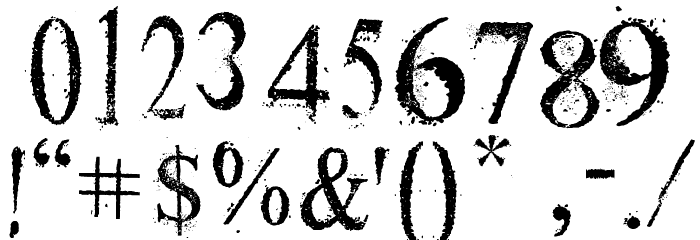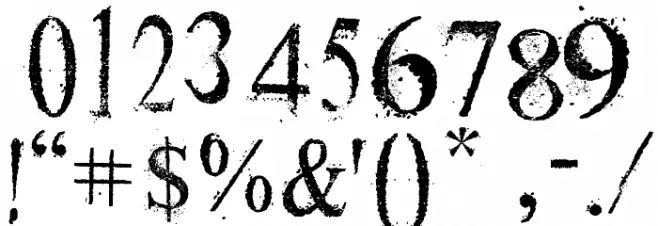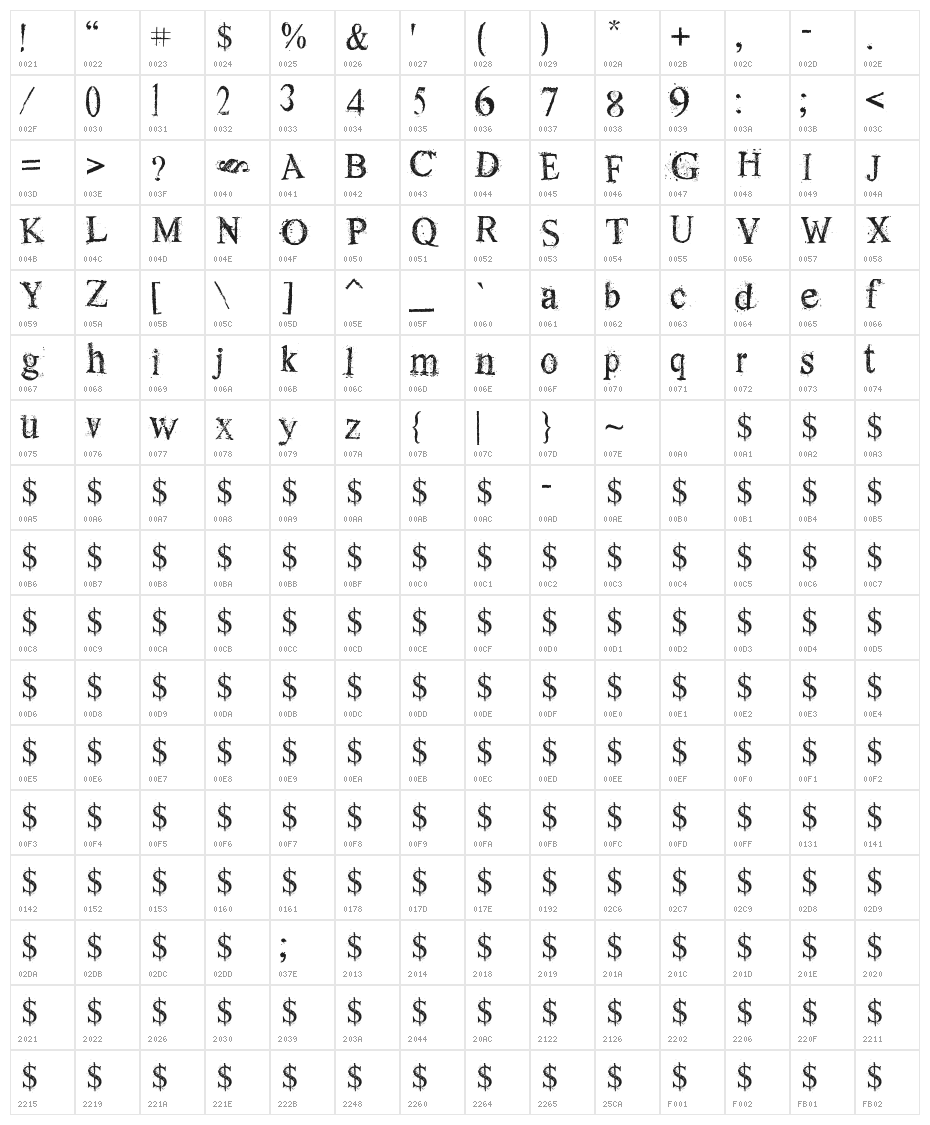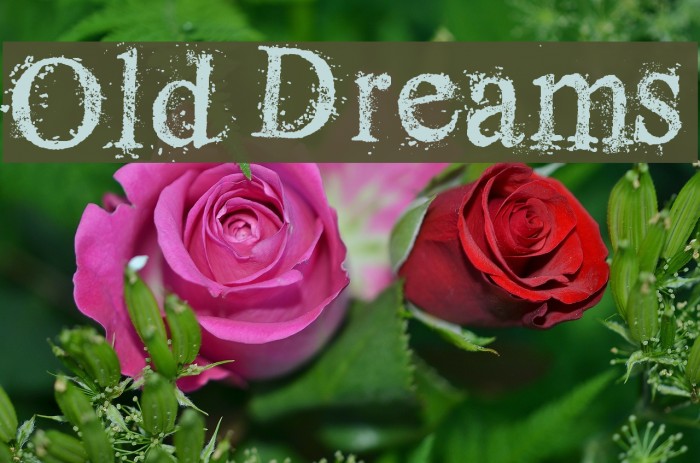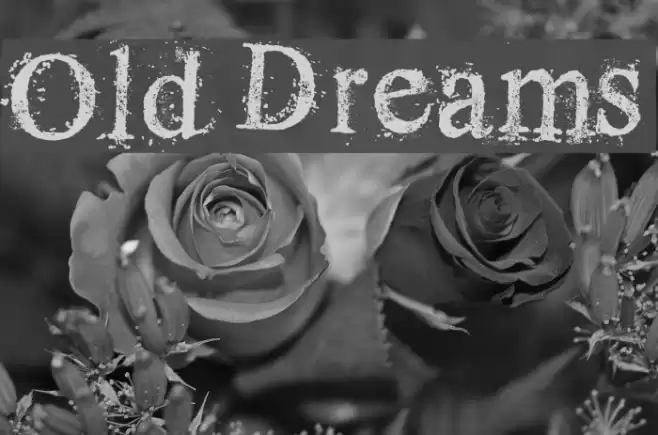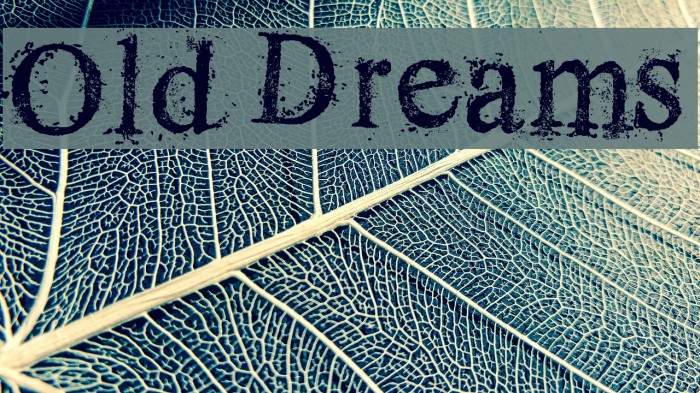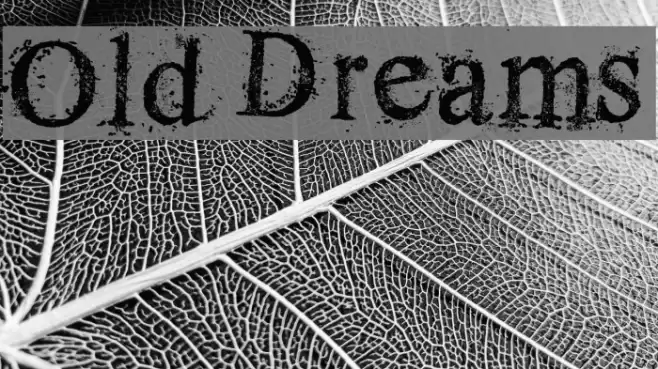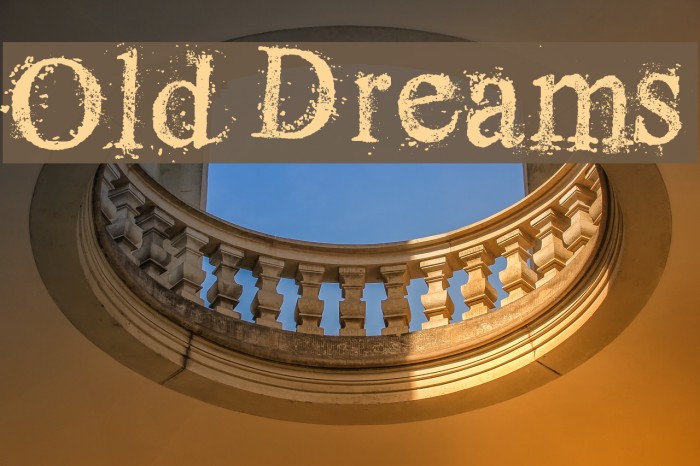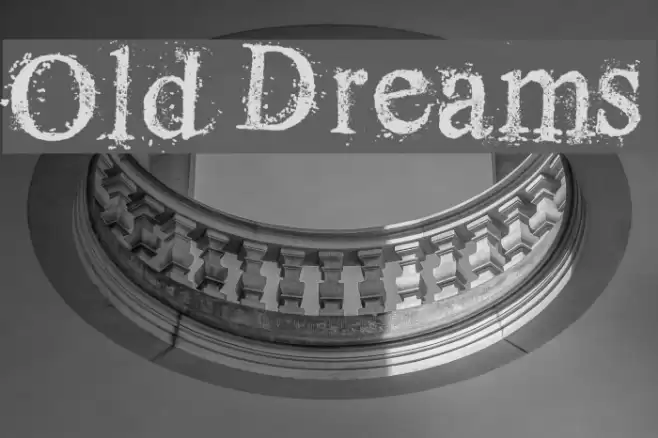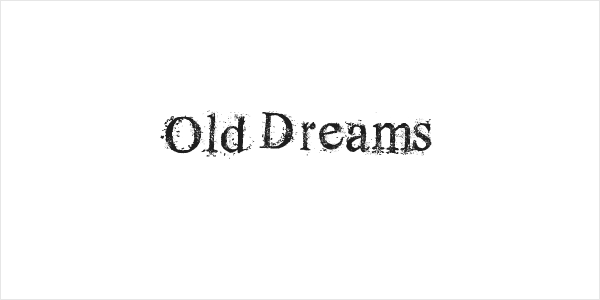
Old Dreams Font
Old Dreams Description
This font features a distressed, textured appearance, giving it a vintage and worn look. The serif style is prominent, with each character exhibiting a rough, weathered texture that suggests age and history. The uppercase and lowercase letters maintain a traditional serif structure, while the numbers and special characters follow suit with the same distressed aesthetic. The overall design evokes a sense of nostalgia and timelessness, making it ideal for projects that aim to capture an antique or rustic feel.
| Use Case | Headlines, Logos, Decorative text |
| Proposed Projects | Ideal for vintage-themed posters, book covers, branding for artisanal products, and any design that requires a rustic or historical touch. |